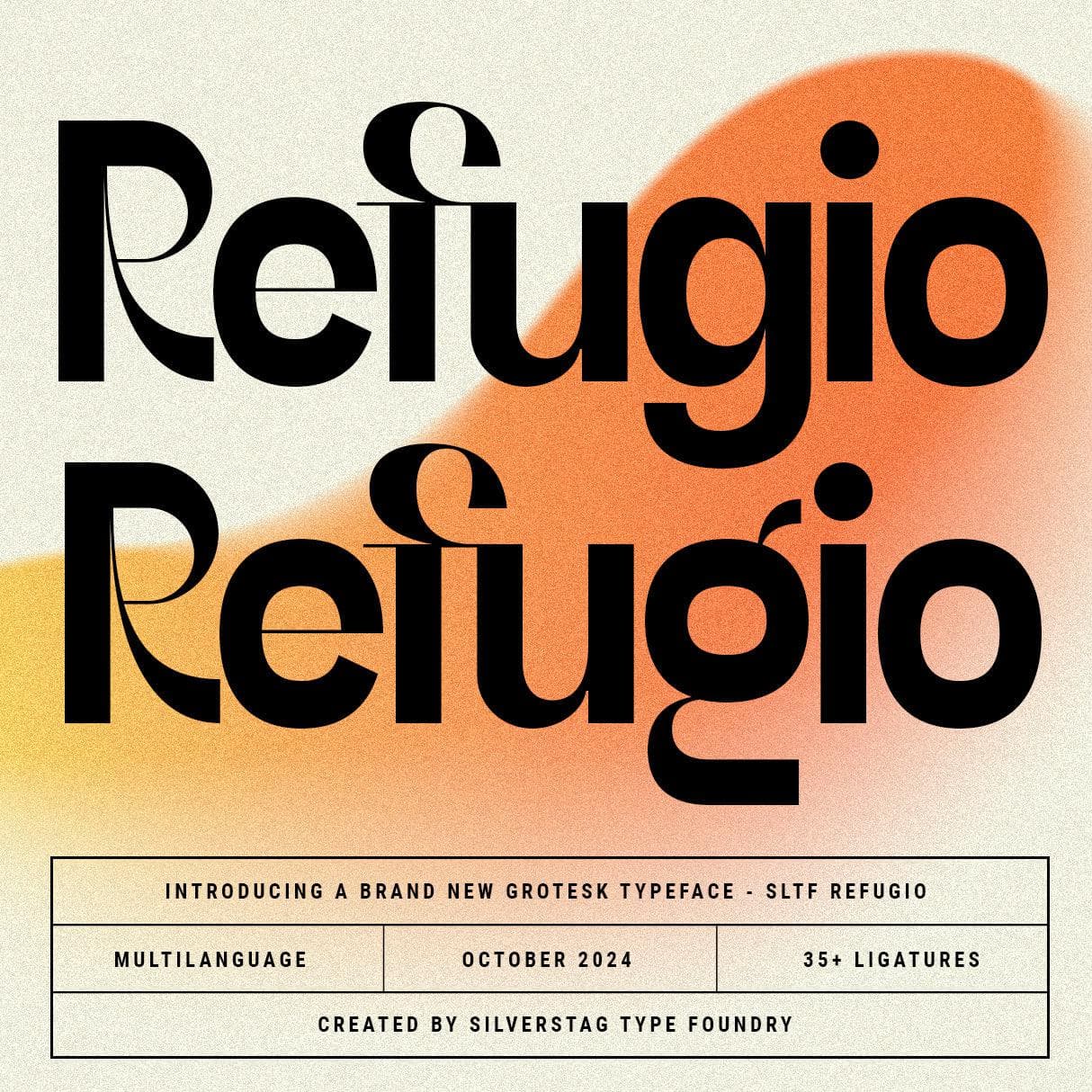
<p><strong>SLTF Refugio - A Grotesque Sans Serif with a Modern Soul</strong></p><p>Introducing SLTF Refugio, a typeface that embodies the spirit of finding sanctuary in creativity. This grotesk sans serif isn't just a collection of letters; it's a haven of unique curves, chic details, and expressive ligatures, designed to inspire and elevate your designs.</p><p><strong>Finding Refuge in Creativity</strong></p><p>The art of font design has always been a refuge for me — a space where I can explore ideas, experiment with forms, and lose myself in the creative process. SLTF Refugio is a reflection of that sanctuary, a reminder that within the strokes of each letter lies a world of possibilities.</p><p>Refugio is characterized by its distinctive personality. Its letterforms strike a balance between classic grotesque styles and contemporary aesthetics, with unexpected curves and a unique contrast that adds a touch of sophistication. With over 35 ligatures and alternates, this typeface offers endless possibilities for customization and self-expression.</p><p><strong>Key Features:</strong></p><ul><li><p><strong>Versatile:</strong> Refugio seamlessly transitions from bold headlines to elegant body text, making it suitable for a wide range of design projects.</p></li><li><p><strong>Unique:</strong> Its distinctive letterforms and unexpected curves set it apart from traditional grotesk sans serifs.</p></li><li><p><strong>Chic:</strong> Refugio exudes a sense of modern sophistication, perfect for branding, editorial, and web design.</p></li><li><p><strong>Globally Inclusive:</strong> With support for over 90 languages, Refugio speaks to a diverse audience.</p></li><li><p><strong>Meticulously Crafted:</strong> Every detail has been carefully considered to ensure readability, visual appeal, and a truly unique typographic experience.</p></li></ul><p>Happy creating everyone!</p>